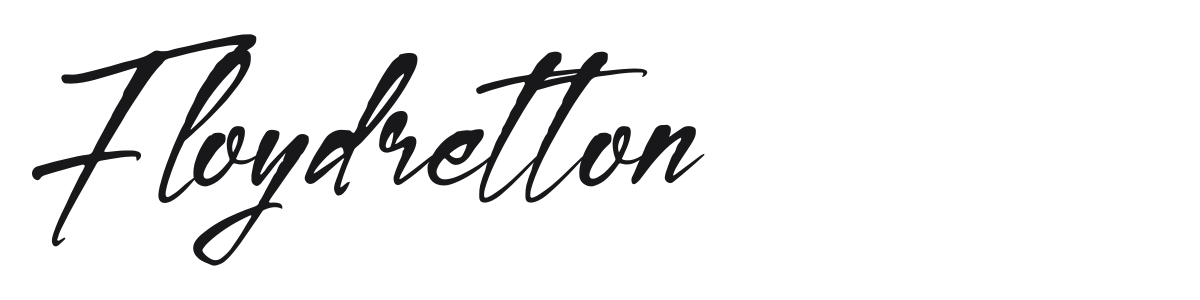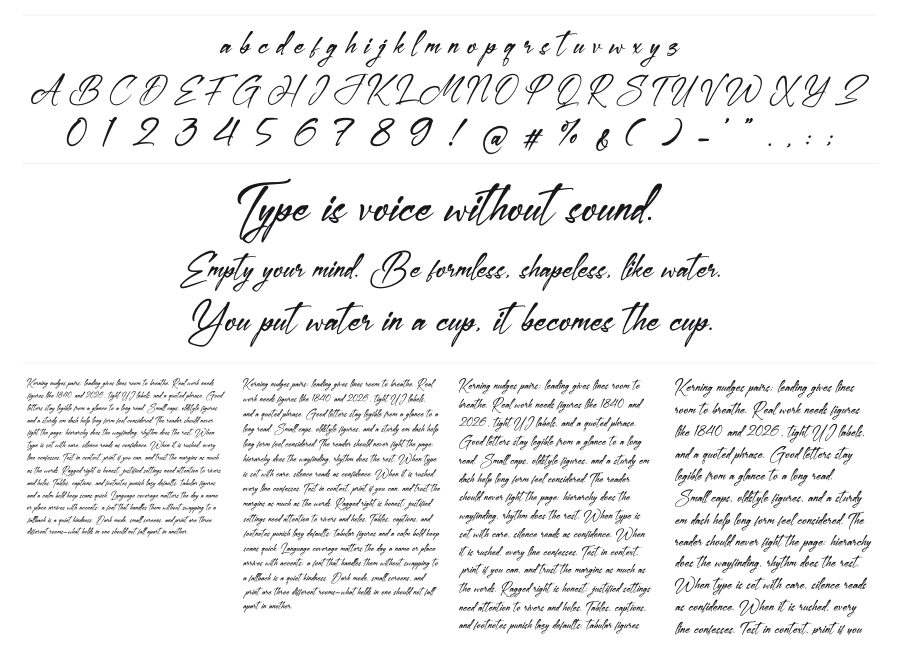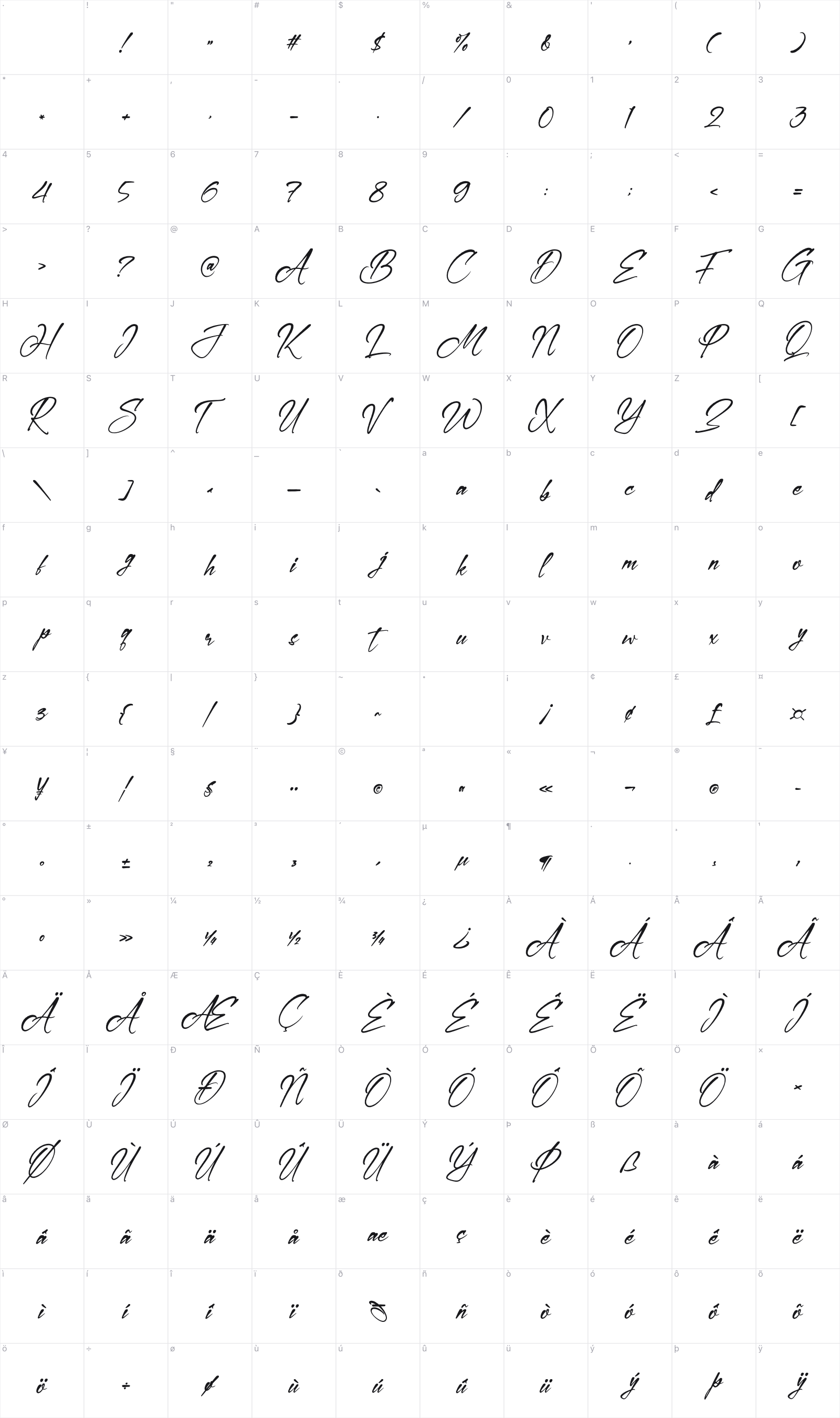
Floydretton
Floydretton is a lively casual script drawn with the energy of a fast ink pen, full of natural stroke variation and overlapping descenders. The letters bounce along an irregular baseline, giving it an unstudied, handcrafted feel that works especially well at large sizes. It suits brand identities, packaging, and editorial headlines where warmth and personality matter.